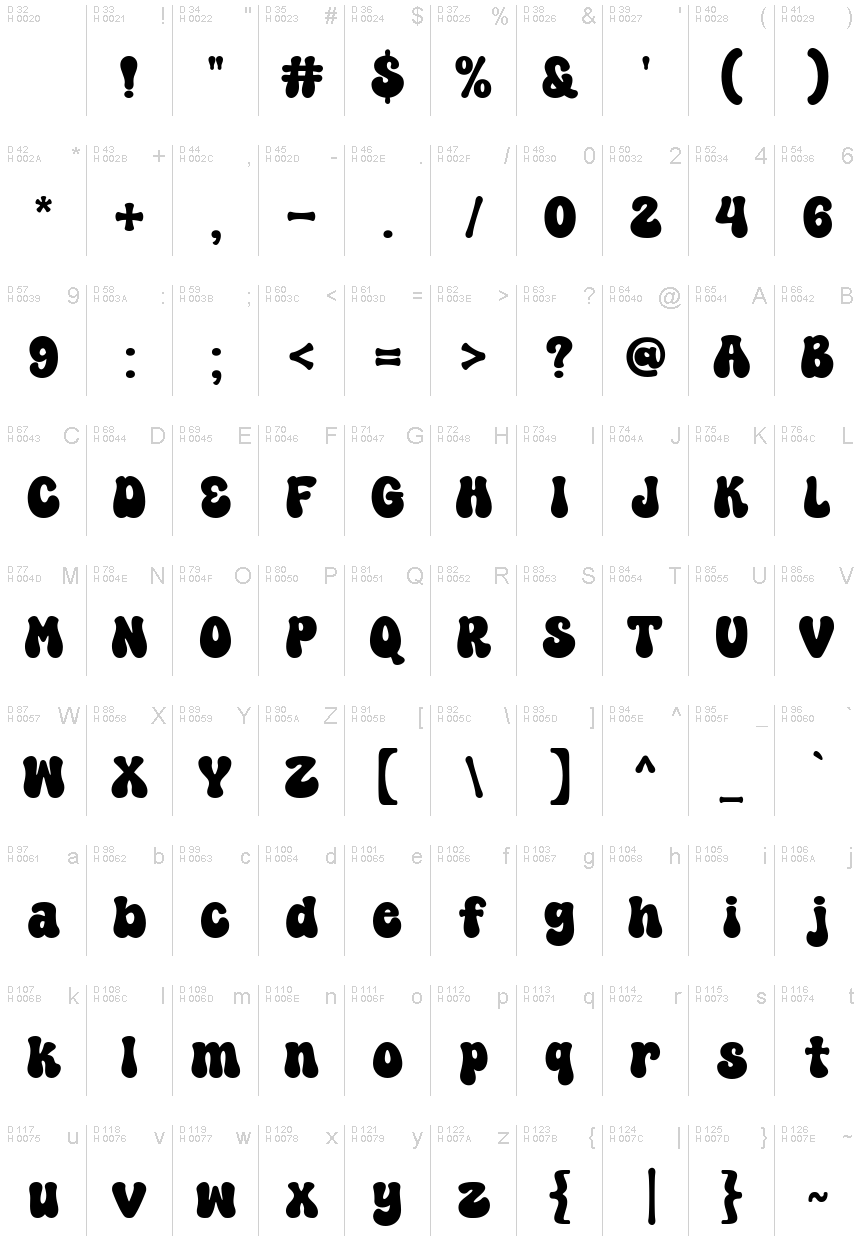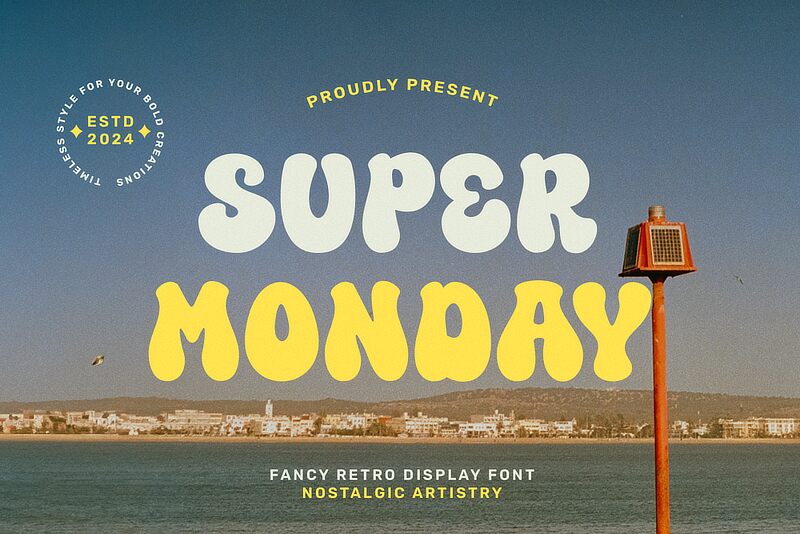
Super Monday
Super Monday, designed by fsuarez913, is a display font that exuberates a groovy flamboyance. With its bold and bubbly characters, this hand-lettered typeface radiates a playful retro charm. The simplicity and casual style of Super Monday bring forth a refreshing burst of nostalgia, channeling sunny vibes into any design it touches.
Ideal for quotes, logos, packaging, and more, Super Monday adds an inviting and cheerful touch to your projects. Its unique character makes it perfect for capturing attention and conveying a sense of fun and delight. Whether you aim to evoke memories of bygone days or simply inject some joy into everyday design elements, Super Monday’s charming aesthetic ensures your message stands out beautifully.